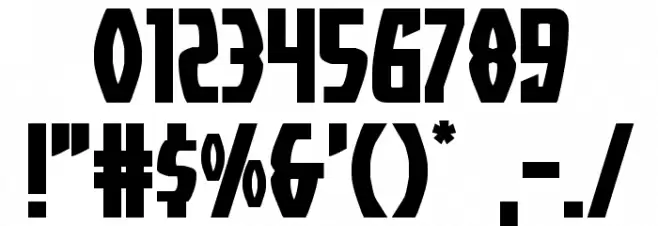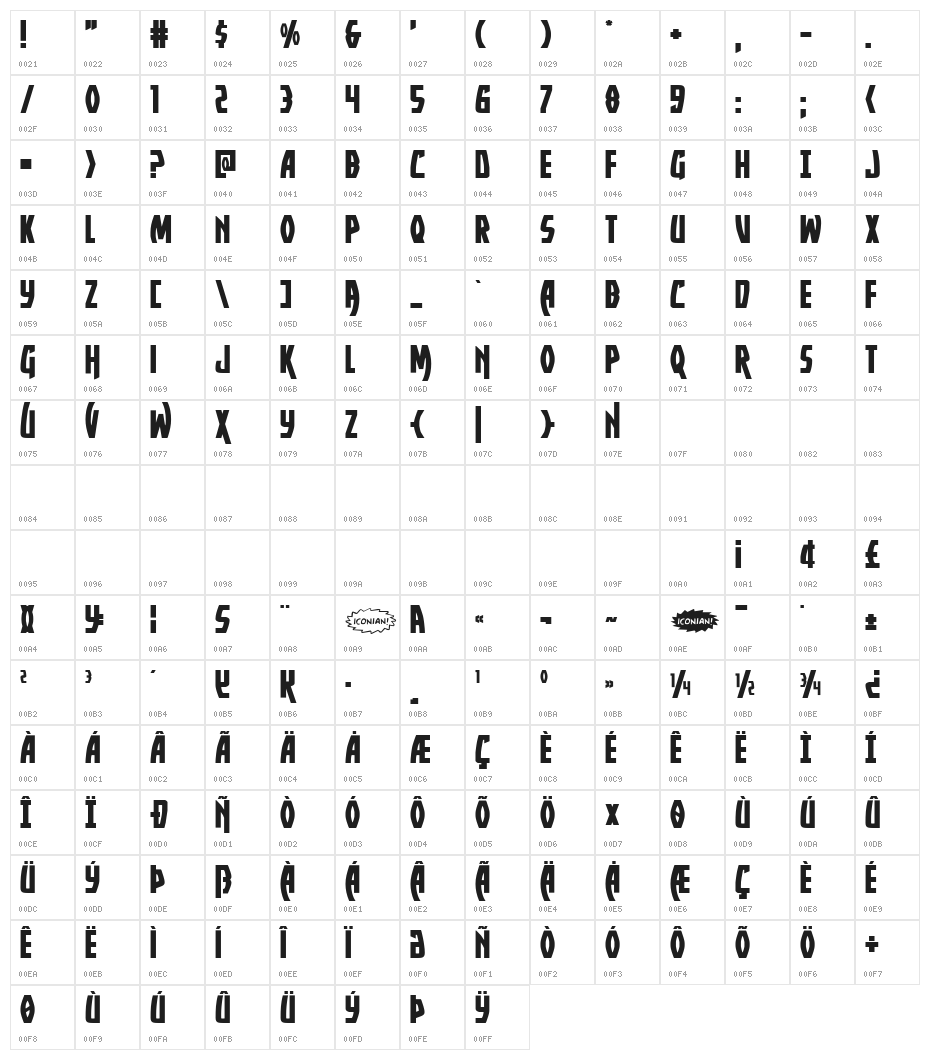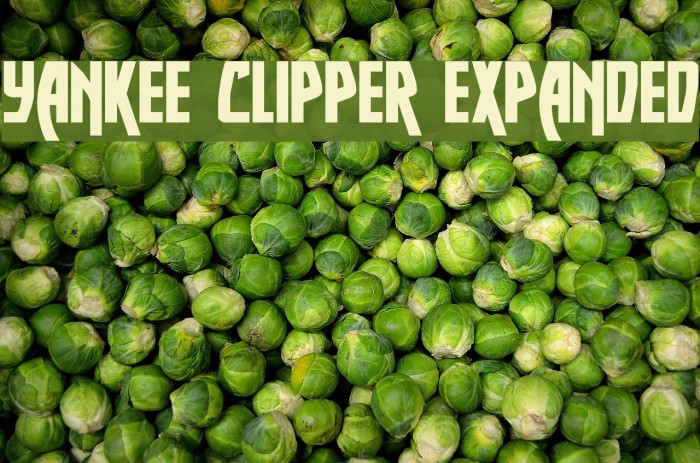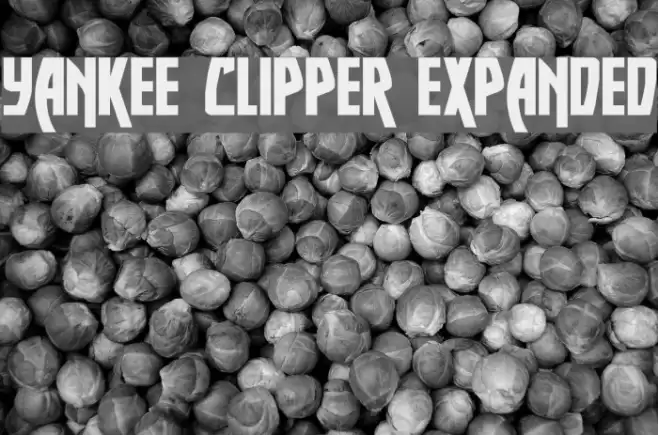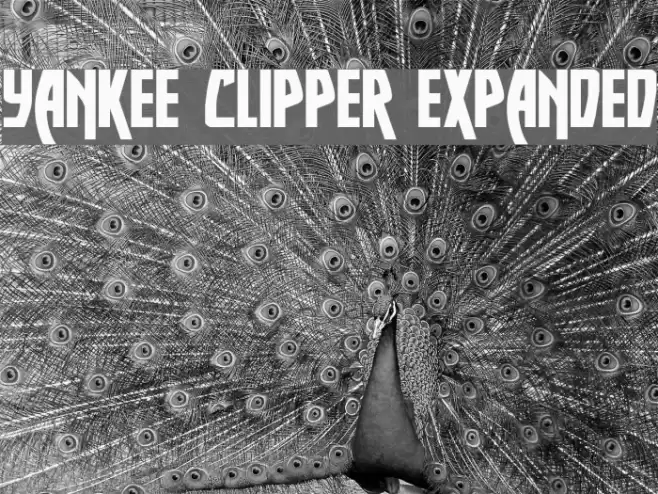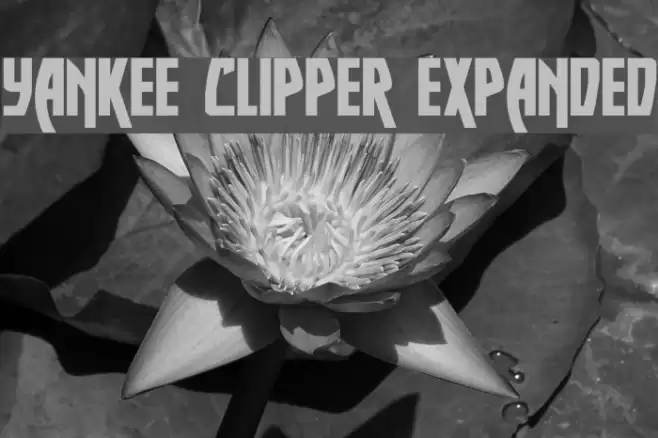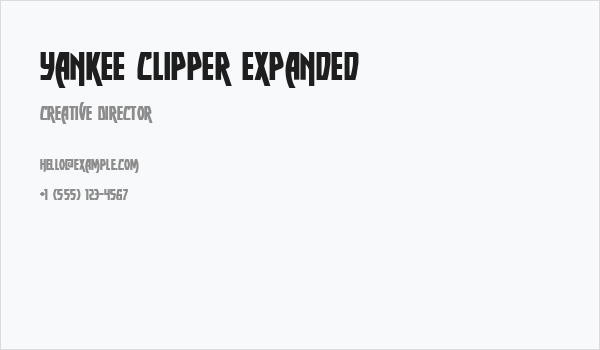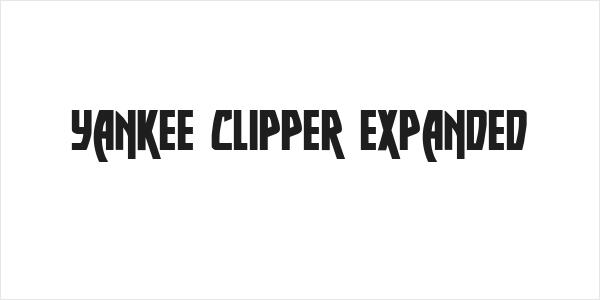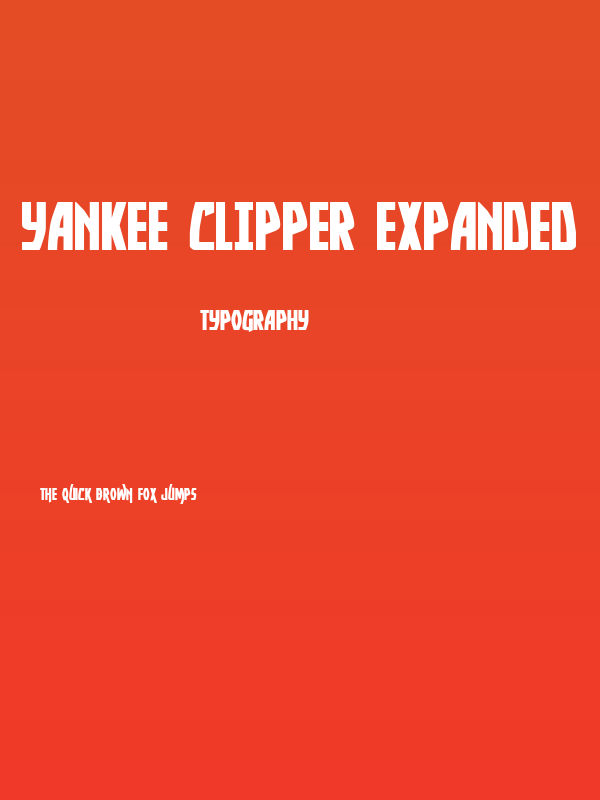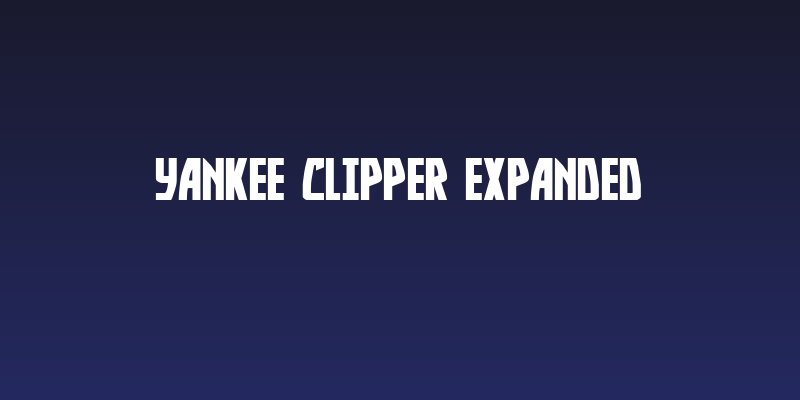
Yankee Clipper Expanded Font
Yankee Clipper Expanded Description
This font features a bold and dynamic style with a strong presence. The characters are sharply angled and have a distinct geometric form, giving them a modern and edgy appearance. The uppercase letters are particularly striking, with a wide stance and thick strokes that convey a sense of power and authority. The lowercase letters maintain the same boldness, ensuring consistency throughout the typeface. Numbers and special characters are equally robust, making them suitable for impactful designs. The overall design is both eye-catching and versatile, making it ideal for projects that require a strong visual impact.